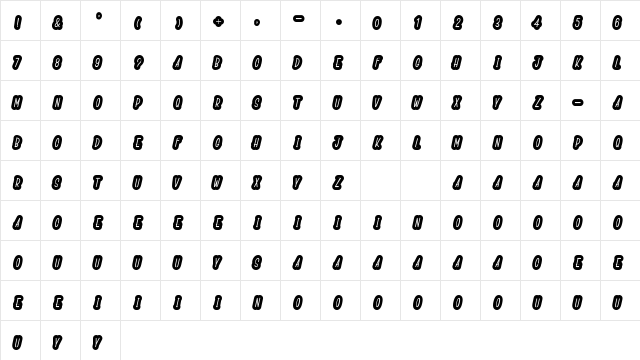
Boldieso Lehonu Regular
Design Context for Boldieso Lehonu Typeface
Boldieso Lehonu offers clean, dependable letterforms without strong stylistic allegiance, making it a practical choice for designers who need flexibility. The heavy weight commands attention and anchors typographic hierarchies.